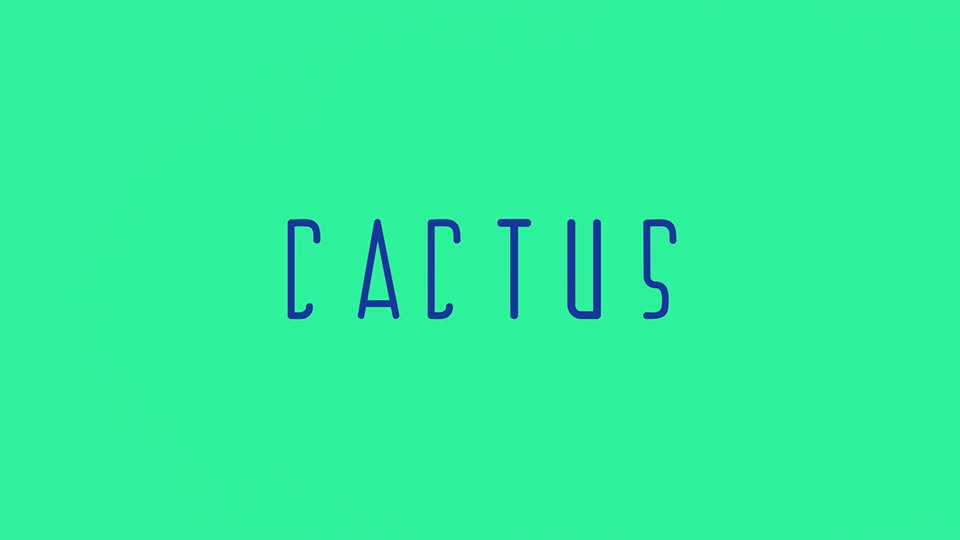
Download Cactus font, a minimal rounded-line typeface which is inspired by the cactus plant branches. It is a simple, neat and eye-catching typeface.
Designer: Qendrim Uka